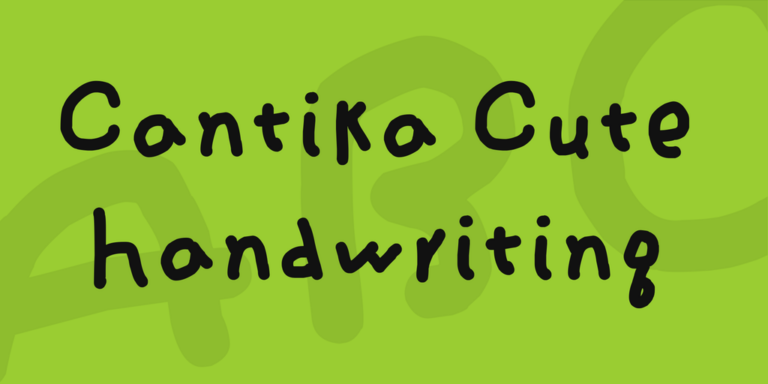
The Perfect Script Font for Your Next Creative Project Do you remember the moment when you saw a beautiful handwritten font and immediately knew you had to use it in your next design project? That’s exactly what happened when I discovered the Cantika Font – a romantic, cute, and bouncy script font that’s sure to…